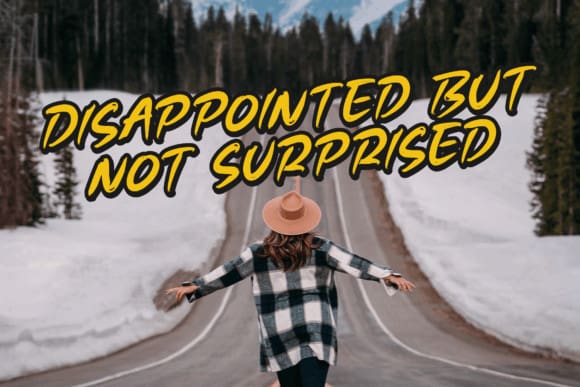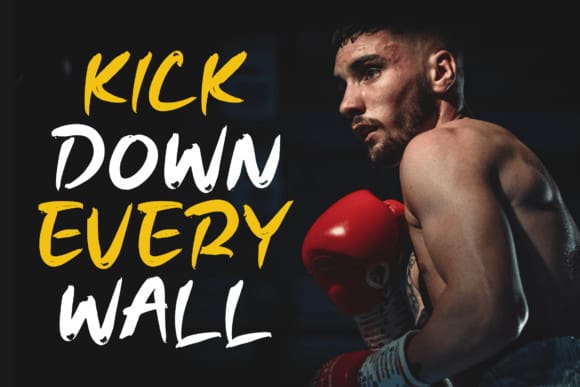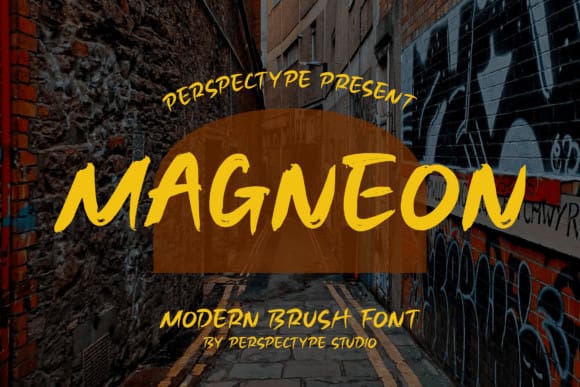
Magneon Brush Font
Magneon Brush Font, is a modern handwritten font suitable for logos, branding projects, homeware designs, product packaging, mugs, quotes, posters, shopping bags, T-shirts, book covers, name cards, invitation cards, greeting cards, labels, photography, watermark, special events, and all your other lovely projects that need a beautiful script taste.